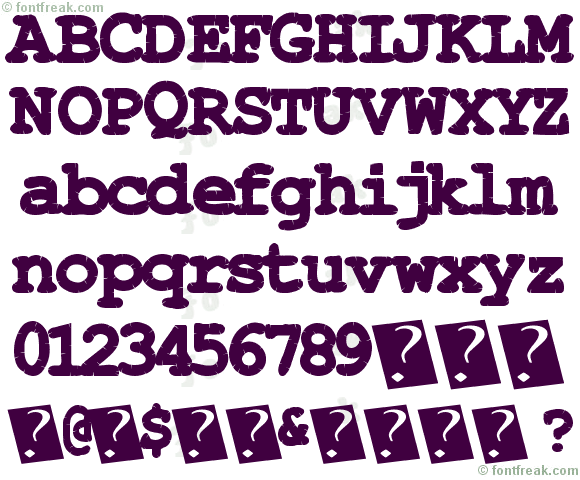
StitchyTimes
About StitchyTimes
StitchyTimes by Xerographer Fonts is a distinctive decorative font that captures the essence of handcrafted artistry. This font features a unique stitch-like appearance, giving it an inviting and whimsical charm. The design showcases a playful stroke weight with a rough texture, evoking the look of fabric or textile, which adds depth and character to any project. The visual contrast is moderate, making it both eye-catching and legible, while the spacing is intentionally loose, enhancing its handmade feel.
This font is ideal for a variety of creative applications. It can elevate wedding invitations, providing a casual yet elegant touch that resonates with the warmth of personal celebrations. Its playful nature makes it a perfect choice for children’s book covers, where a fun and engaging aesthetic is essential. Additionally, StitchyTimes can be effectively used in restaurant menus, adding a rustic charm that complements a cozy dining atmosphere. It also works well for promotional materials for craft fairs or artisanal markets, where the handmade ethos aligns perfectly with the font's design. Content creators and graphic designers will find it an excellent resource for social media graphics, particularly for lifestyle brands that embrace a creative and informal vibe.
The target audience for StitchyTimes includes graphic designers, small business owners, and content creators looking to add a touch of uniqueness to their projects. Whether you’re crafting an invitation, designing merchandise, or creating eye-catching graphics, this font can make a significant impact.